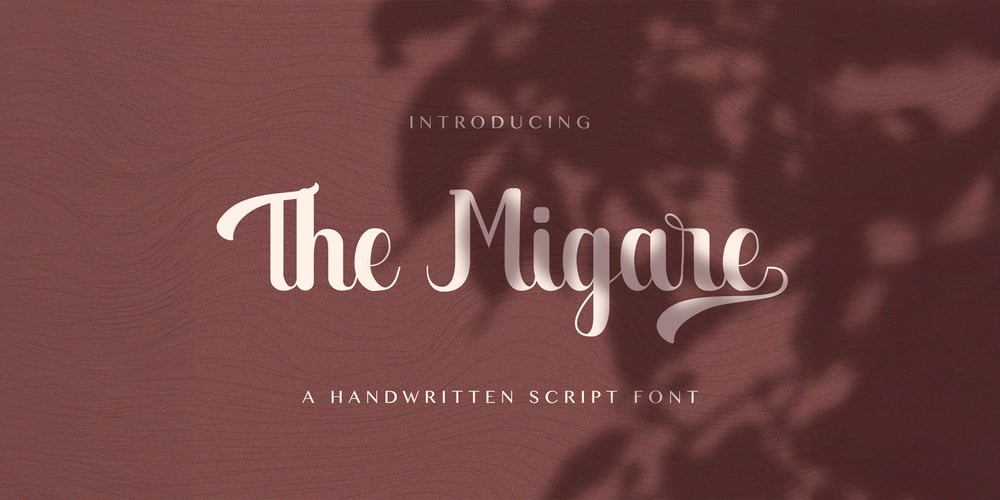
The Migare
The Migare font
The Migare Font Family was designed by Virgiawan Listanto and published by Stringlabs Creative Studio. The Migare contains 1 styles and family package options. The Migare is a stylish and modern handwritten font that brings a touch of elegance and personality to any design project. Whether you’re working on a creative project or looking to add a personal touch, The Migare adds a warm, handmade feel to your designs.